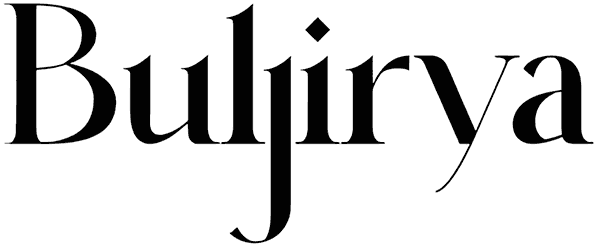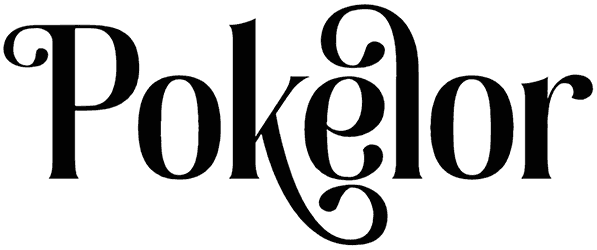
Blastula Font
Classical word styles are always so beloved and memorable, and Blastula is one of them. This serif font has bold and modest letters that can be harmonized with any official or unofficial project. This item can be used for many designs like posters, logos, magazines, and many more others the same.
Designed by: 177Studio